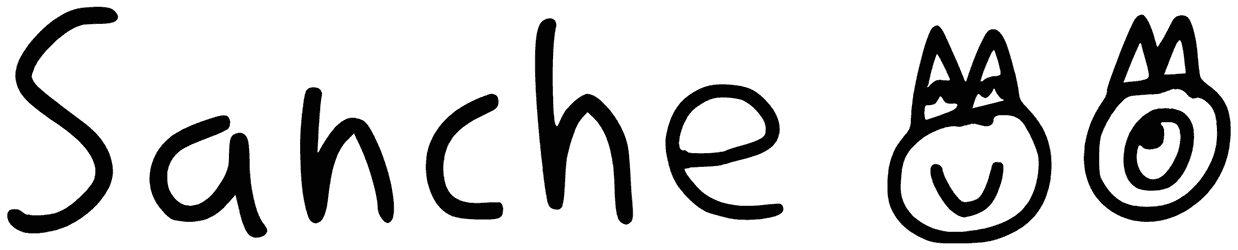
Sanche Font
Are you working on a cartoon design and want to attract a lot of attention? This childish doodle font, named Sanche, would be a cool choice. With a realistic and cute vibe, the Sanche font could add a playful mood to you…
Are you working on a cartoon design and want to attract a lot of attention? This childish doodle font, named Sanche, would be a cool choice. With a realistic and cute vibe, the Sanche font could add a playful mood to your context. Set this cartoon font on your coming designs, from comics to kids’ posters, and make them cheerful.